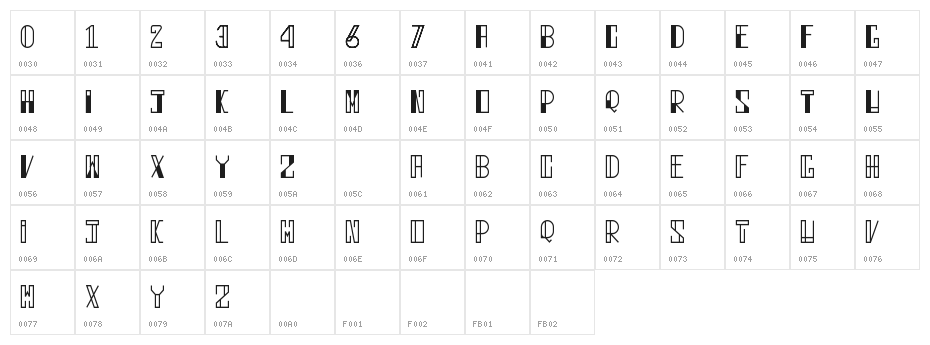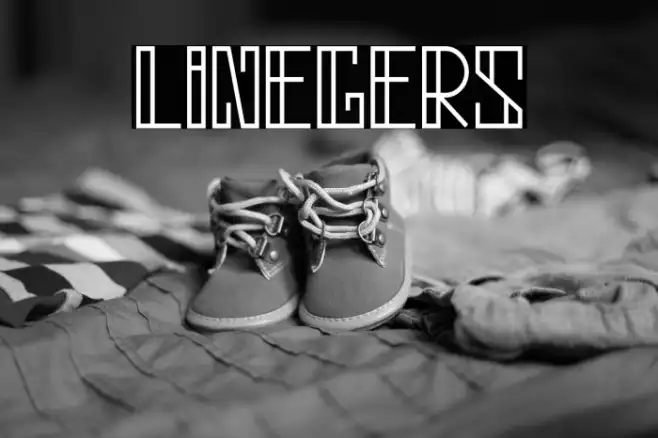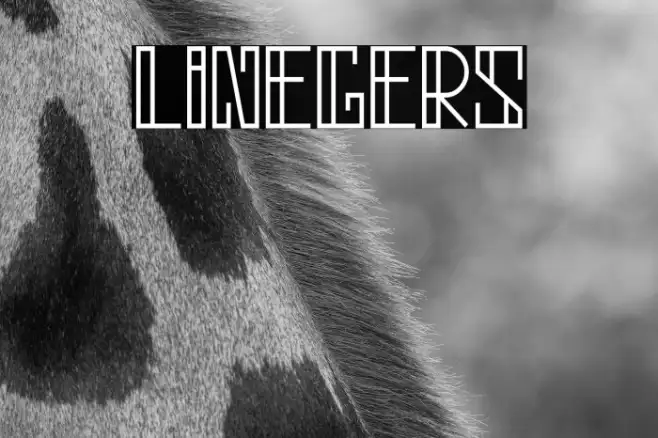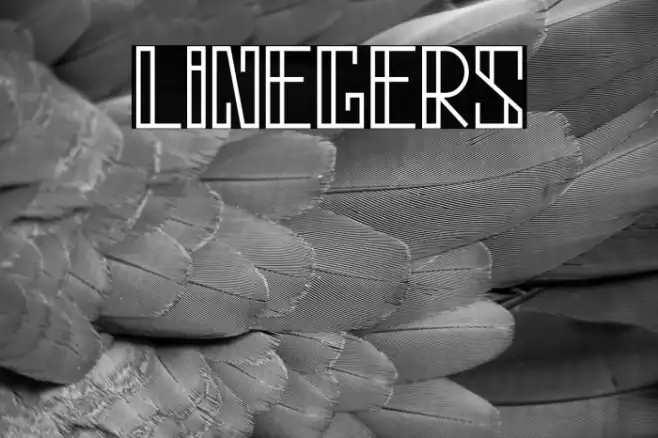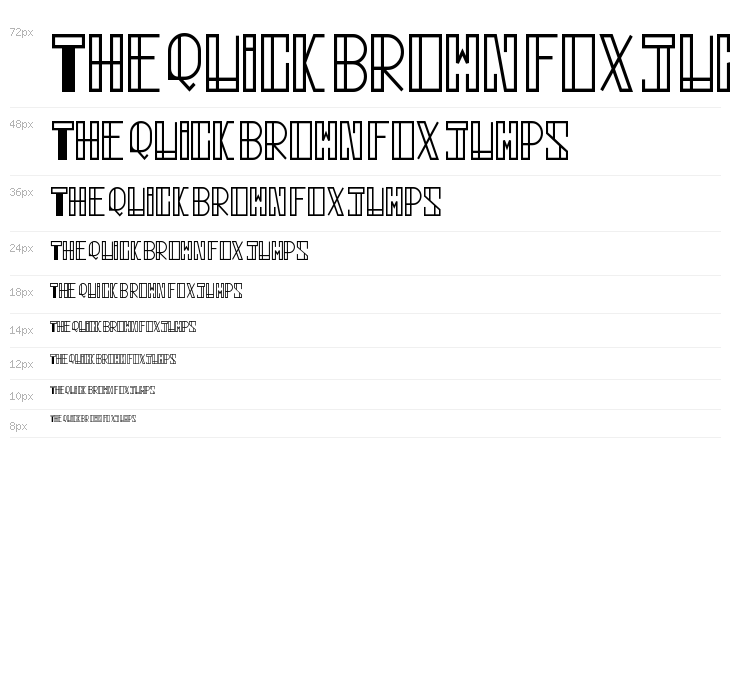
linegers Font
linegers Description
This font features a bold and geometric design with a strong emphasis on angular shapes and sharp edges. The uppercase letters are characterized by their block-like structure, while the lowercase letters maintain a consistent style with a slightly more condensed form. The numbers are distinct and follow the same geometric pattern, ensuring readability and uniformity. Special characters are creatively integrated, maintaining the overall aesthetic. The font's unique style makes it suitable for eye-catching designs and modern applications.
| Proposed Projects | Ideal for modern branding, posters, and digital media where a strong visual impact is desired. |